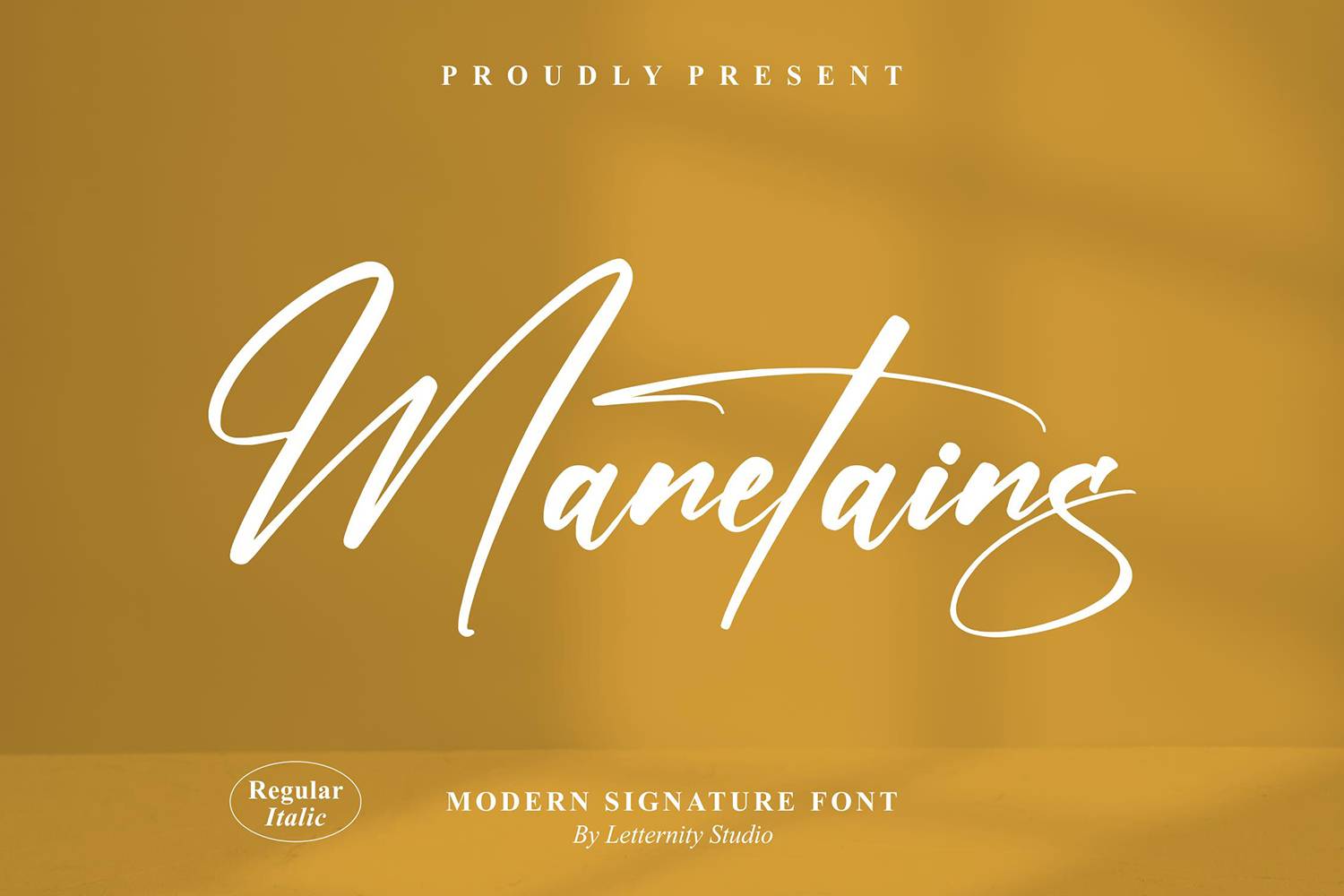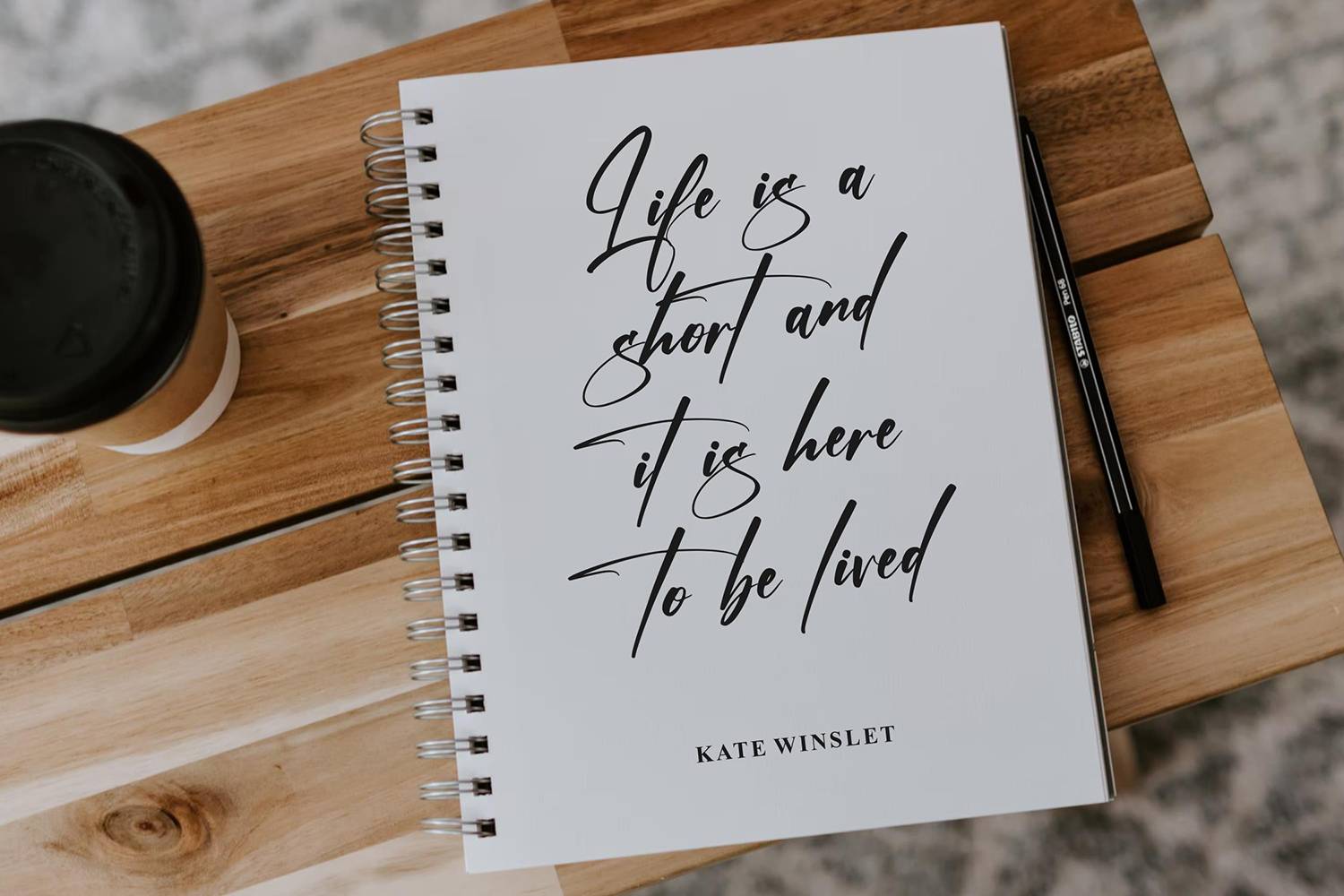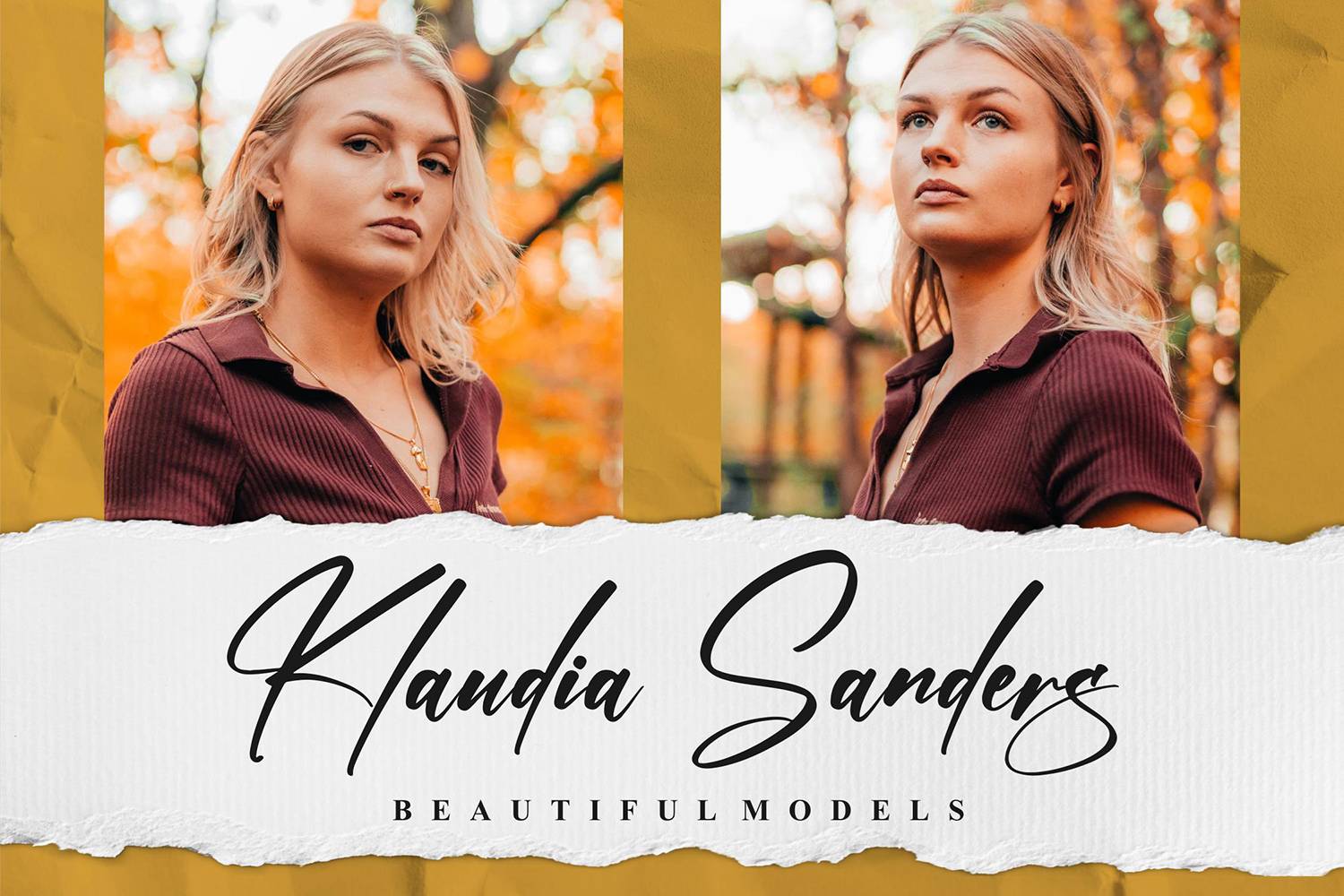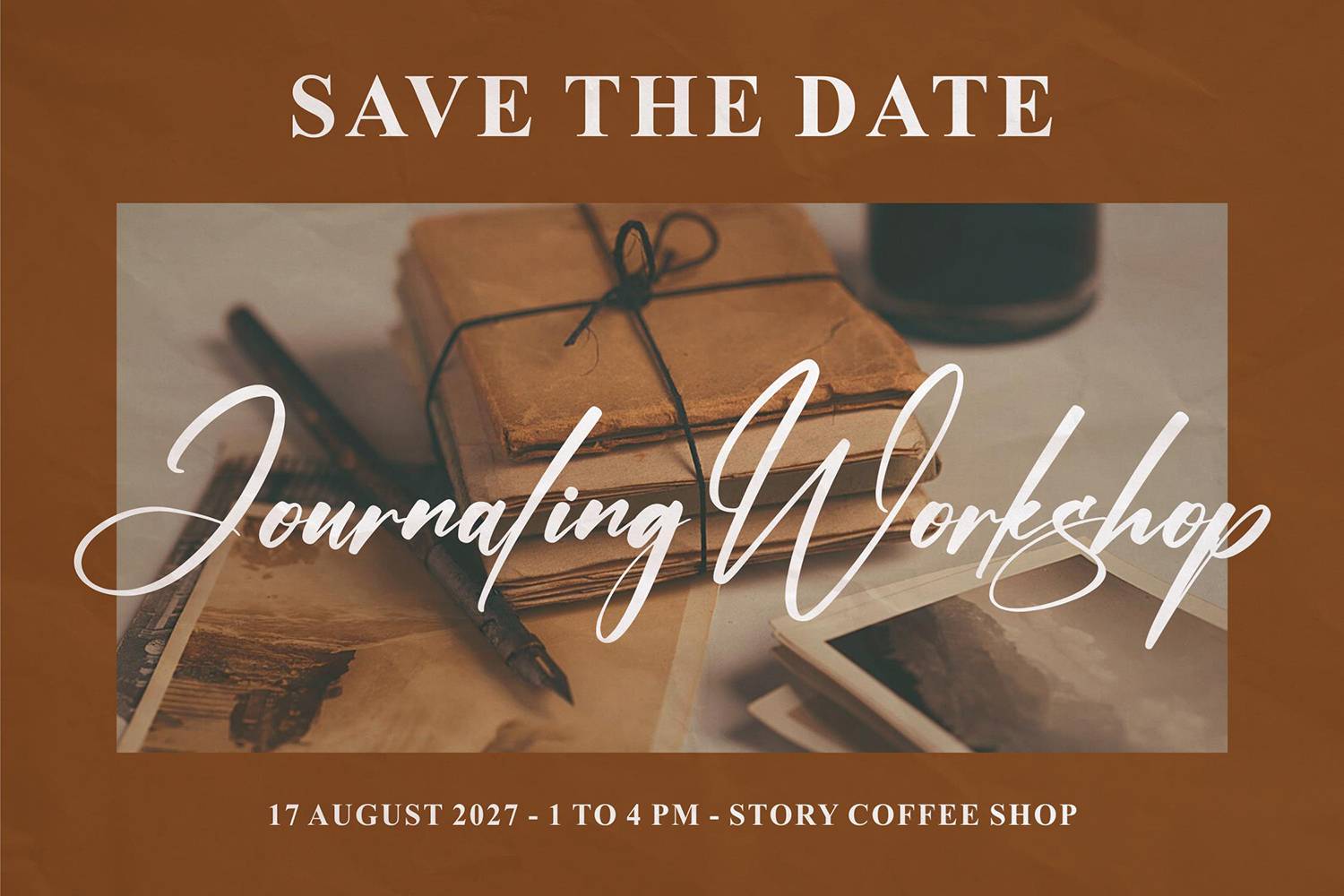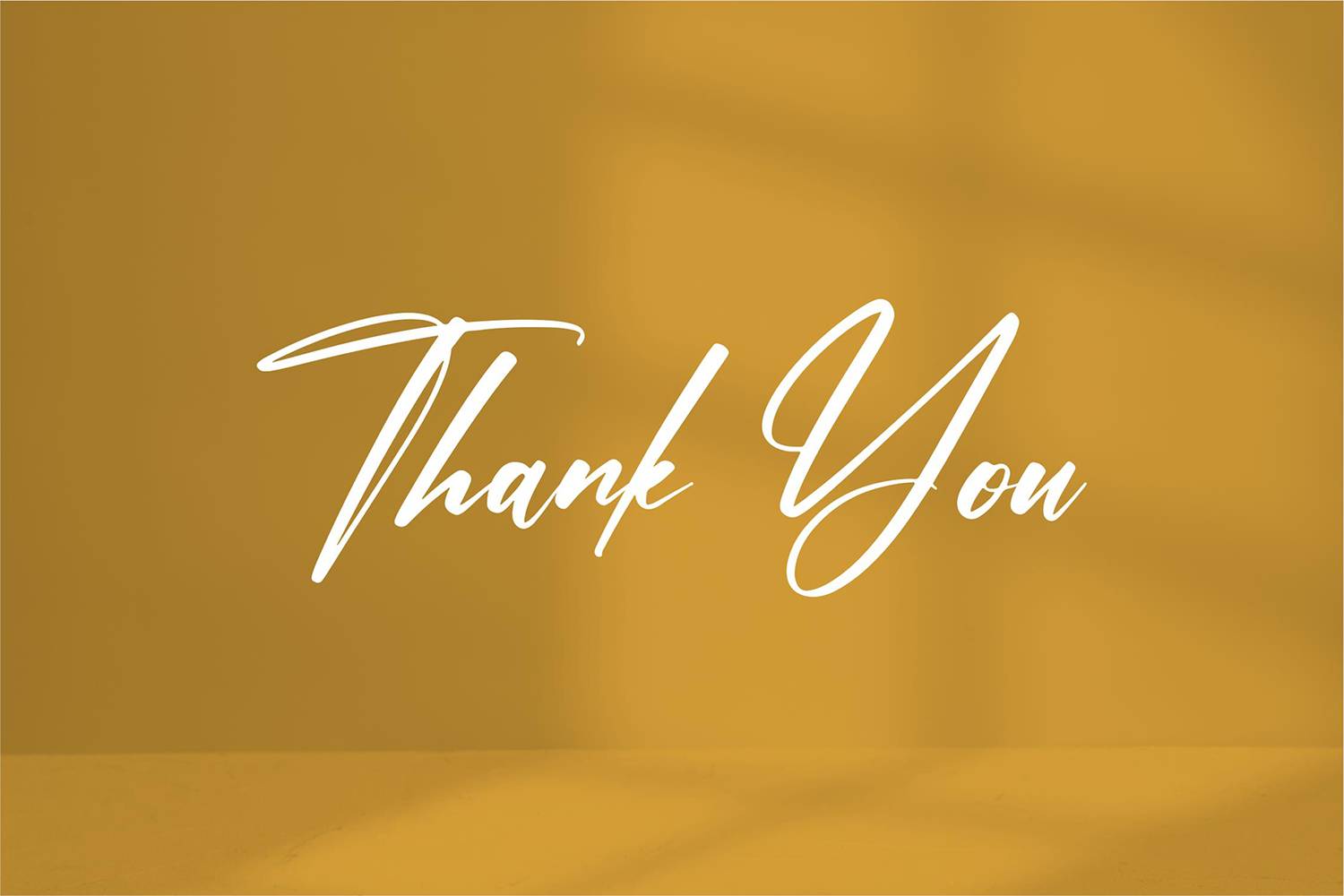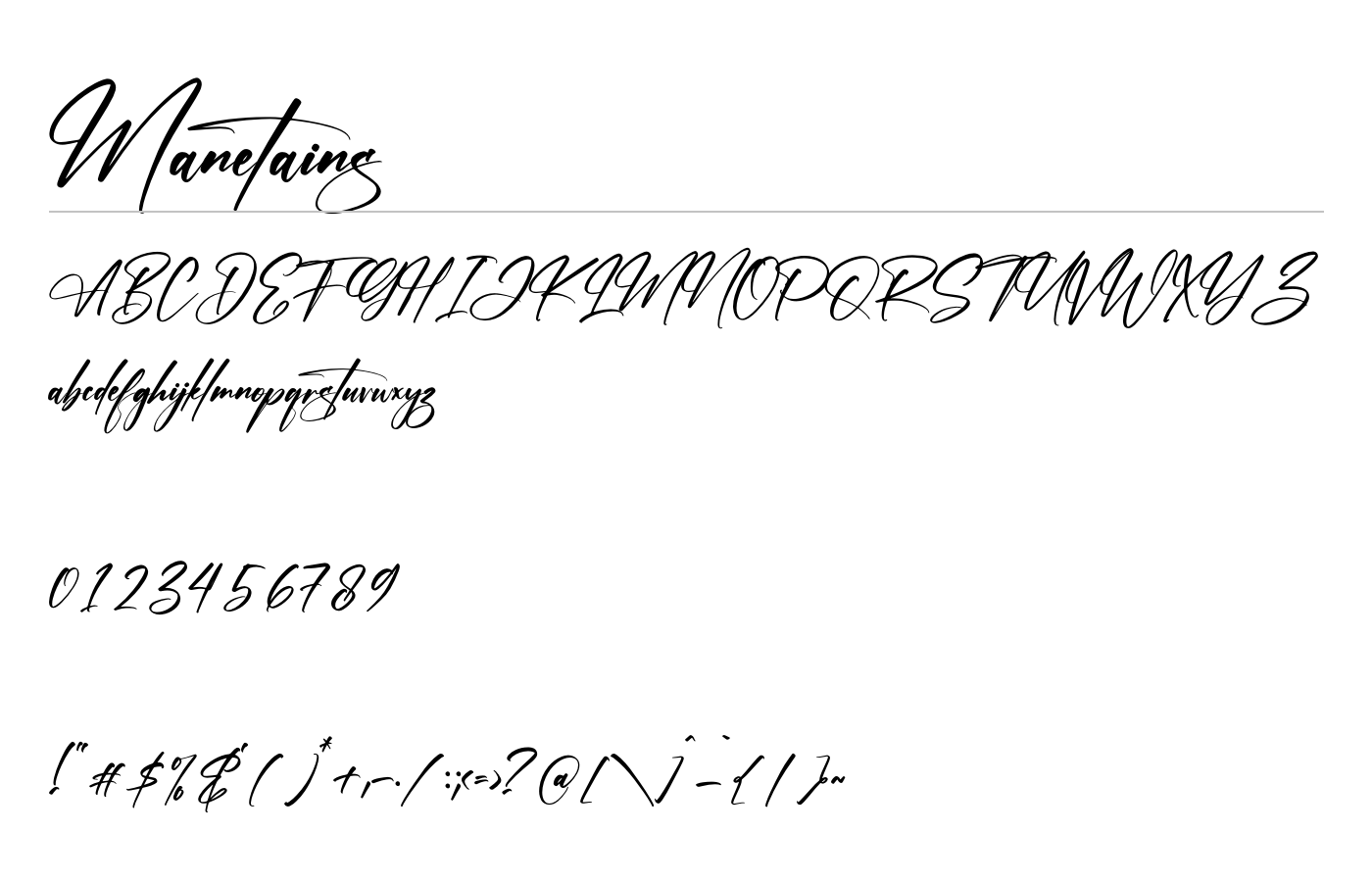
Manetains is an elegant script font characterized by its flowing, hand-drawn style with fine, consistent strokes and graceful loops. It offers a delicate yet lively feel, making it perfect for sophisticated branding, wedding invitations, and stylish editorial use where a personal, artistic touch is desired. Its refined curves and slender letterforms lend a sense of luxury and creativity while remaining readable for headlines and decorative text.
Manetains Font
About Manetains Font